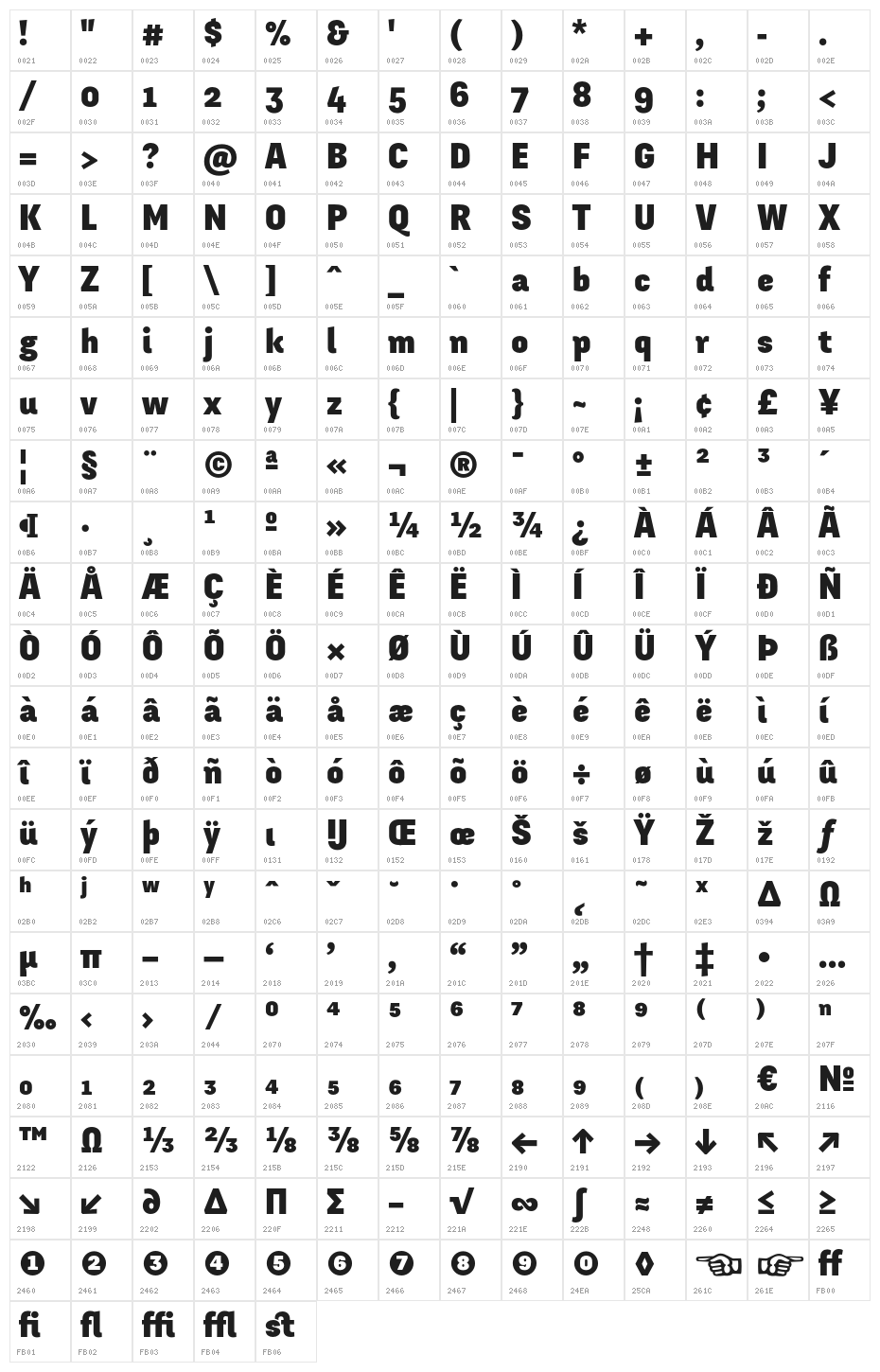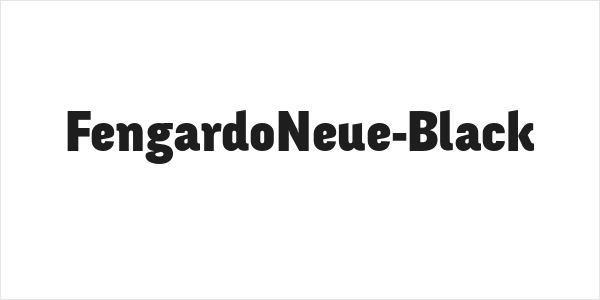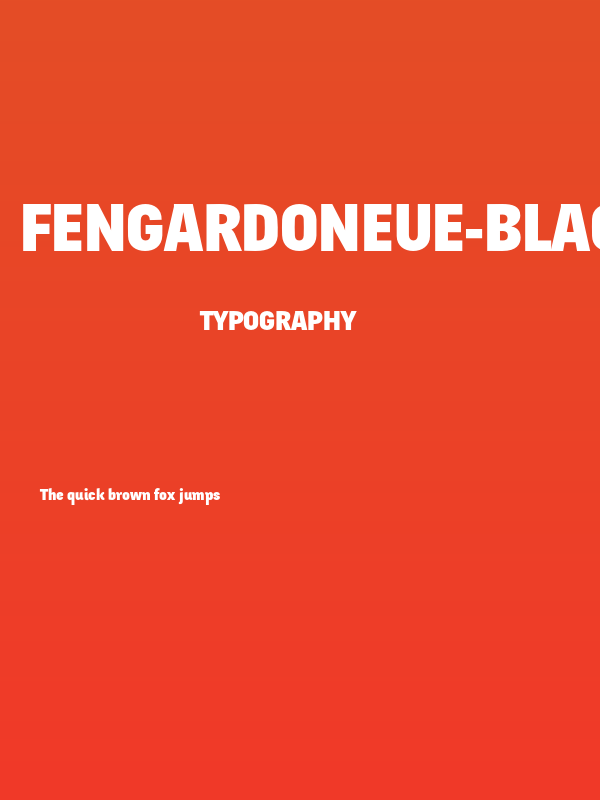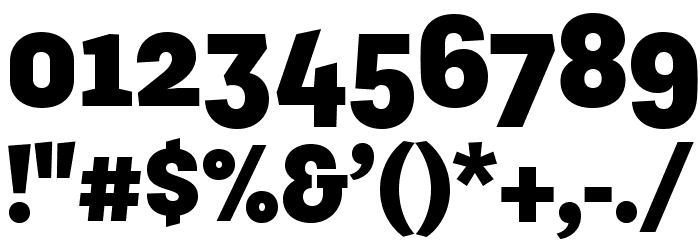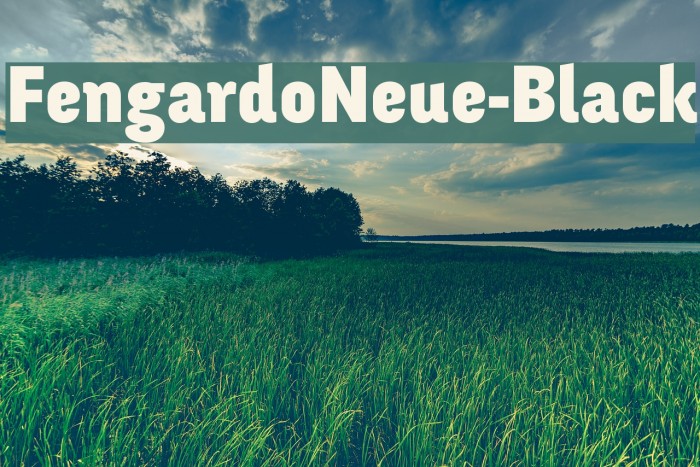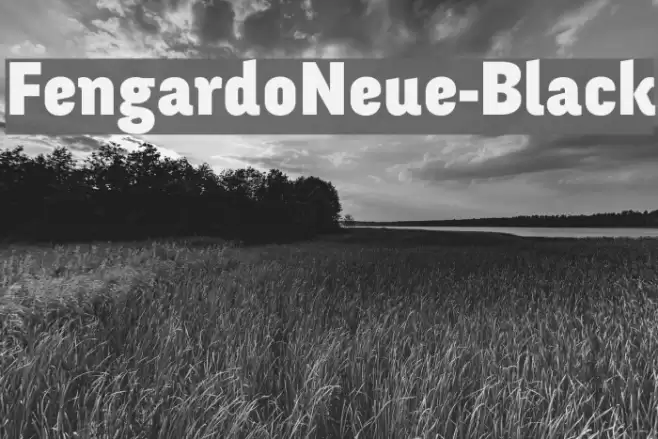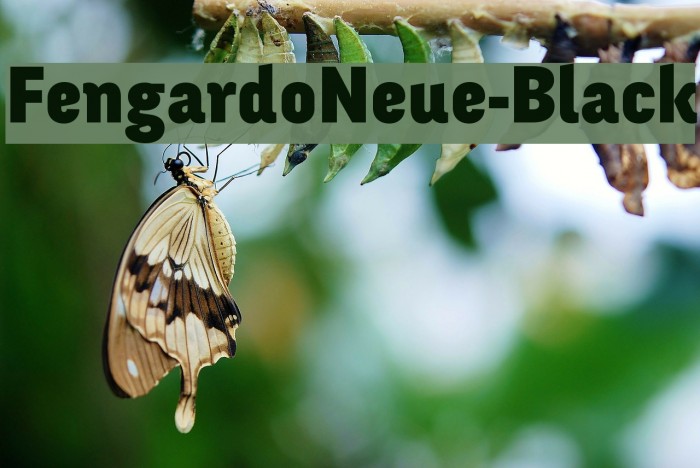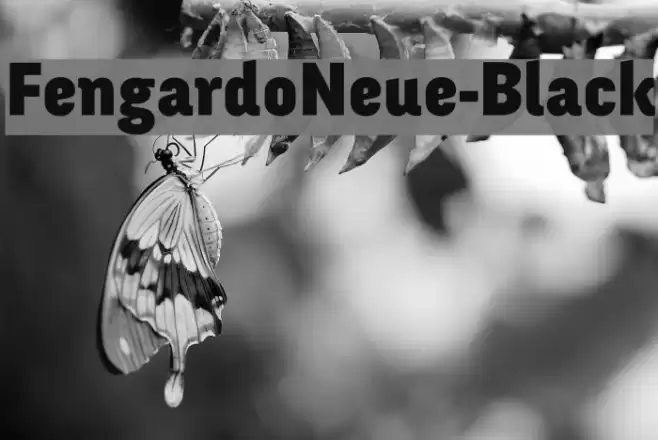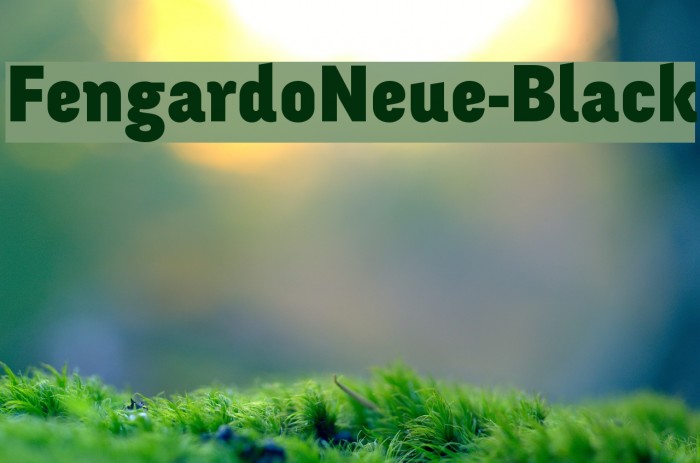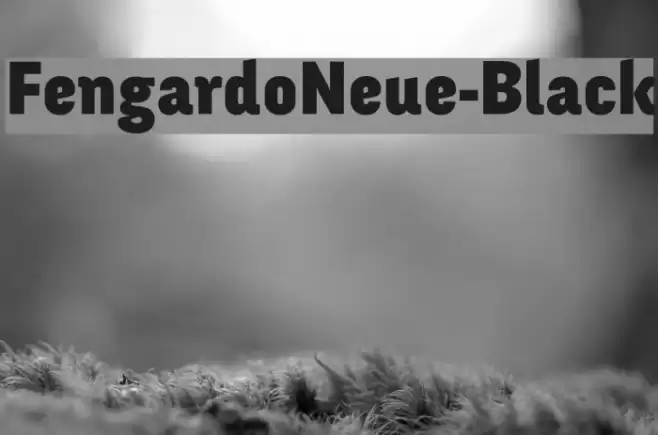
FengardoNeue-Black Font
FengardoNeue-Black Description
This font features bold, thick strokes with a strong presence, making it ideal for impactful designs. The uppercase letters are robust and commanding, while the lowercase letters maintain a consistent weight, ensuring readability. The numerals are equally bold, providing a cohesive look across all characters. Special characters are designed with the same thickness, ensuring uniformity. The overall style is modern and assertive, suitable for projects that require a strong visual impact.
| Proposed Projects | Ideal for headlines, posters, branding, and any design requiring a bold statement. |